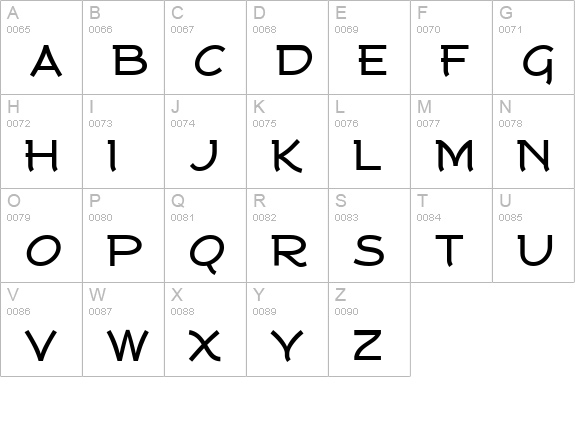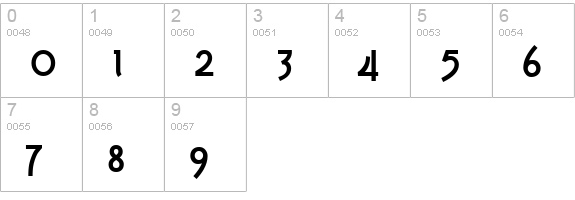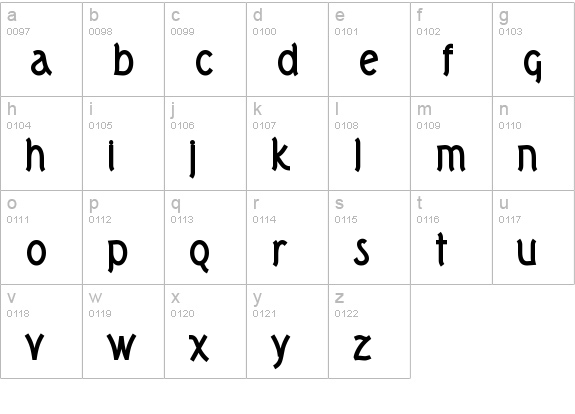
Tork Bold is a strong, high-contrast variant in the Tork typeface family \xE2\x80\x94 well suited to headlines, attention-grabbing titles, and strong calls-to-action.
Introducing Tork Bold, a modern and powerful font that exudes confidence and professionalism. With its bold and distinctive letterforms, Tork Bold is perfect for creating eye-catching headlines, logos, and branding materials. This versatile typeface commands attention with its strong presence and clean lines. Its bold weight is designed to make a bold statement, ensuring that your message is conveyed with impact and authority. Whether for print or digital media, Tork Bold delivers a consistent and striking appearance across various applications. What sets Tork Bold apart is not just its visual appeal but also its accessibility. We are delighted to offer this exceptional font to you for free. Yes, you read that right - Tork Bold is freely available to download at FontsMarket.com. Now, you can elevate your designs without breaking the bank. With Tork Bold, you have the freedom to unleash your creativity and explore endless design possibilities. Its wide range of characters and ligatures allows you to craft unique and memorable typographic compositions. Whether you're designing for a corporate brand, a trendy fashion label, or a cutting-edge tech startup, Tork Bold has got you covered. Moreover, Tork Bold is crafted with precision and attention to detail, ensuring legibility and readability even at smaller sizes. This makes it a reliable choice for body text, captions, and subheadings, adding a touch of sophistication to any project. So, why wait? Experience the power and versatility of Tork Bold today and take your designs to the next level. Download this exceptional font for free at FontsMarket.com and unlock a world of typographic possibilities.